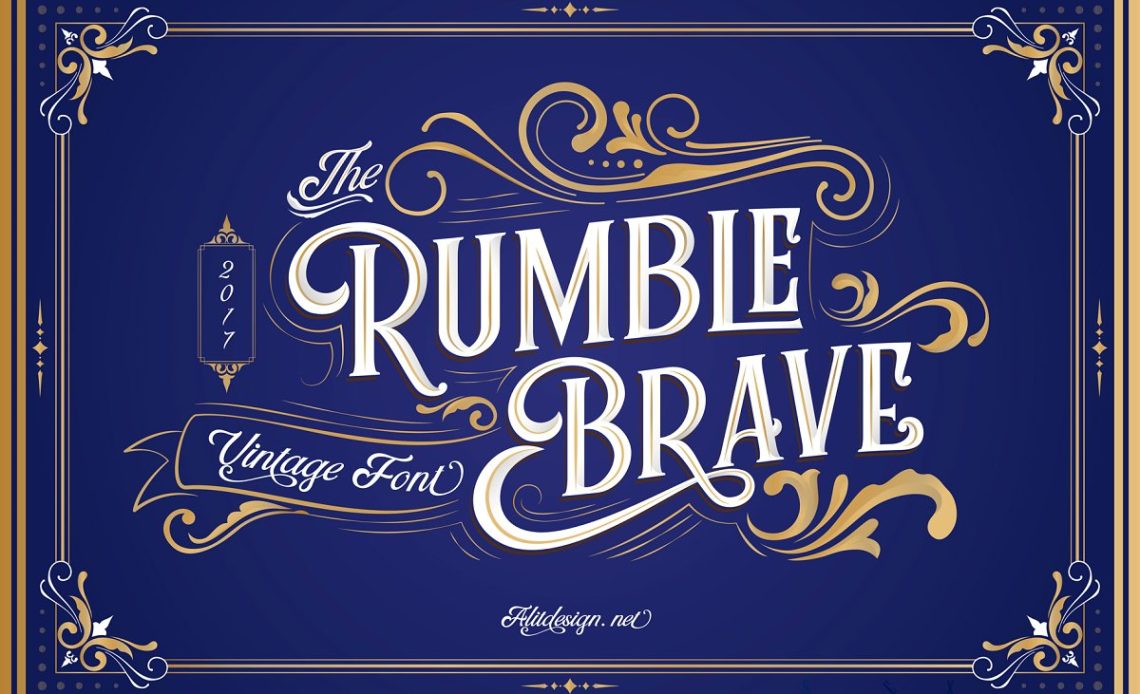
Introducing the Rumble Brave Typeface, a font collection that embodies the vintage victorian classic design style. Created by alit suarnegara, this font package offers three types of letters: serif, script, and dingbat, all perfectly compatible with the victorian classic design concept. Whether used individually or in combination, Rumble Brave Typeface exudes uniqueness, luxury, bravery, and elegance.
One of the standout features of this font collection is the inclusion of a two-layer ornament, making it ideal for gradient designs. Additionally, Rumble Brave Typeface is incredibly versatile and can be easily used with or without other design programs.
If you're looking to elevate your beverage label designs, coffee labels, logotypes, badges, or classic wedding concepts, Rumble Brave Typeface is the perfect choice. It is also well-suited for gig posters, letterheads, drop caps, titles, and any other artwork.
Features of the Rumble Brave Typeface collection include a complete character set from A to Z, numerals, punctuations, and accents for multilingual characters. It also offers standard ligatures, stylistic alternates, and various stylistic sets (SS01, SS02, SS03, SS04, SS05) for added customization. The collection even includes stylish swashes to add a touch of elegance to your designs.